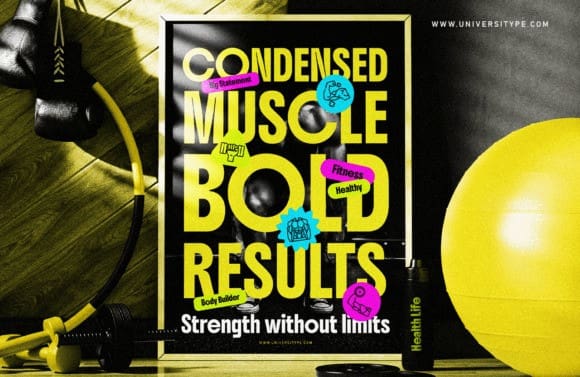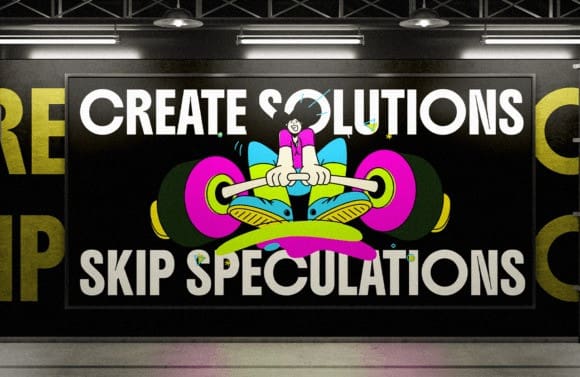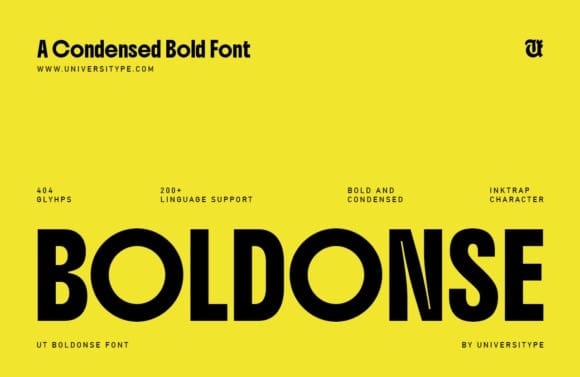
UT Boldonse Font
UT Boldonse Font, a robust typeface imbued with a whimsical twist that lets your designs take center stage. Neither ordinary nor simplistic, UT Boldonse fills a unique niche with its confident, compact sans-serif style. The font’s character is imbued with a playful, yet functional personality, marked by eye-catching inktrap details.
This isn’t your average bold font, UT Boldonse emboldens creative expression while boasting easy readability. Its compact stature is ideal for small spaces, with inktrap components elevating both style and function. UTBoldonse stands out with its impressive repertoire of 404 glyphs, catering to over 200 languages. Despite its condensed style, clarity and boldness are uncompromised.
UT Boldonse offers diverse application possibilities. You can etch memorable brands with its muscular and quirky flair, or claim attention with impactful posters and headlines. Regardless of being digital or print, any material amplifies its aesthetic appeal with the addition of UTBoldonse.
Designers are often found swooning over UT Boldonse’s adaptability—it effortlessly pairs with both tech-inspired and other artistic styles. Even when squeezed into tight spaces, its clarity remains undeterred, giving it an edge above other condensed fonts. Its distinctive inktrap traits also grant it a unique appeal, setting it apart from the crowd.
Just envision: Invigorating your designs with UT Boldonse’s flair. Bold headlines set in this typeface would breathe life into any avant-garde magazine, and the extraordinary logos created for tech startups would radiate professionalism. Social media graphics donning UTBoldonse are guaranteed to turn heads. The possibilities to foster memorable experiences are countless with this font.